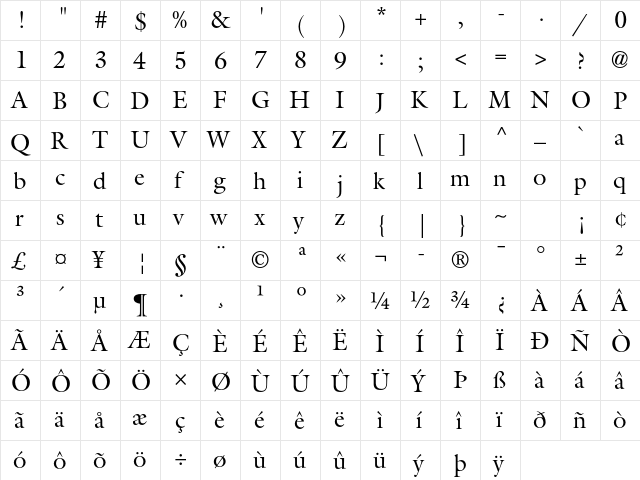
ITC Galliard Std Roman
| Designer | Matthew Carter |
Design Context for ITC Galliard Std Typeface
ITC Galliard Std takes a measured approach to typography — its balanced proportions and neutral character make it a reliable workhorse for both digital and print work.